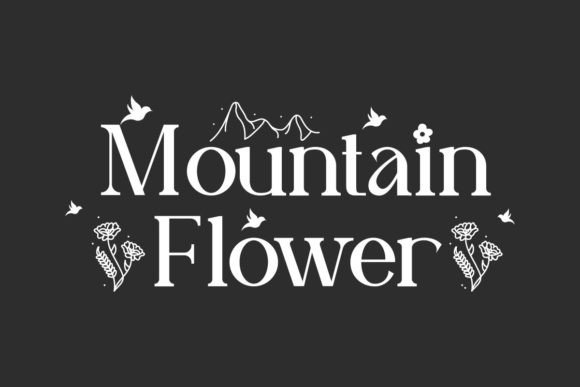
Journey into the realm of creative expression with Mountain Flower Font, a serif masterpiece that captures the essence of indie aesthetics and elegance. This font family, crafted by the skilled hands at Vintype, is a visual symphony, a dance of serifs that resemble delicate flower petals, each stroke imbued with a handcrafted, organic touch.
Mountain Flower is more than just a font; it's an invitation to embark on a creative odyssey, to infuse your designs with a captivating aura that speaks to the heart. Its serifs, reminiscent of nature's artistry, evoke a sense of individuality and charm, making it the perfect choice for branding, packaging, and creative projects that yearn for a unique and captivating identity.
Imagine your designs adorned with Mountain Flower, its elegant curves and organic textures adding a layer of sophistication and personality. Let your words dance across the page, imbued with the spirit of indie flair, capturing the attention of your audience and leaving a lasting impression.
Whether you're a seasoned designer or just beginning your creative journey, Mountain Flower is your perfect companion. Its versatility knows no bounds, seamlessly adapting to a myriad of projects, from logos and branding to packaging and marketing materials. Unleash your creativity and watch as your designs blossom into works of art, captivating and unforgettable.